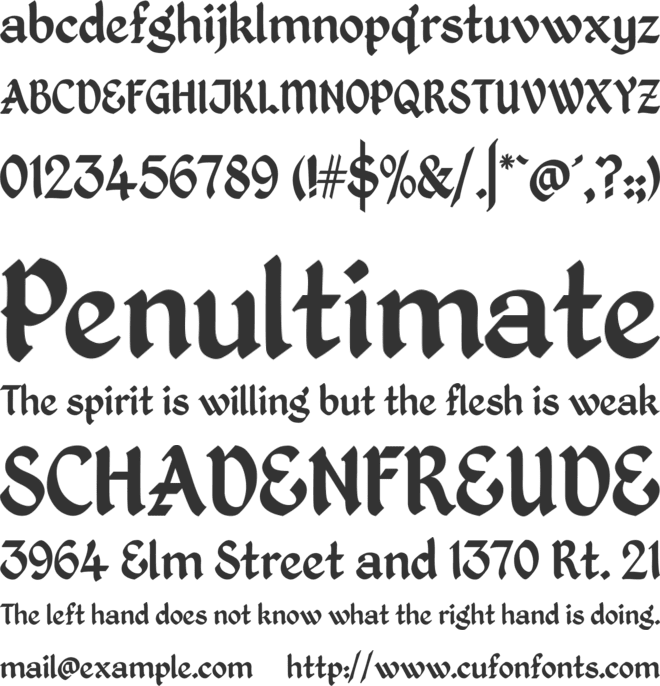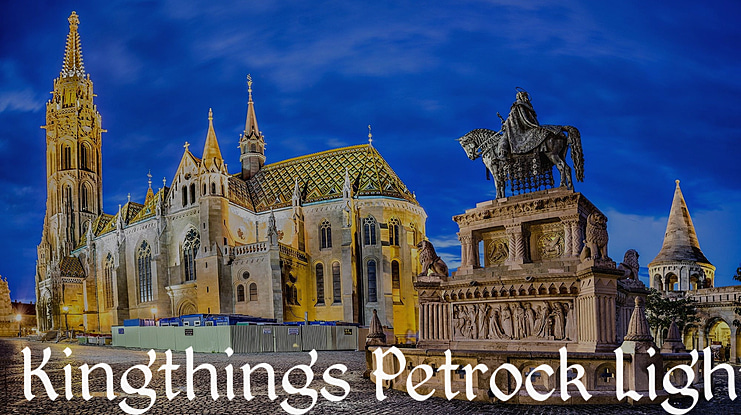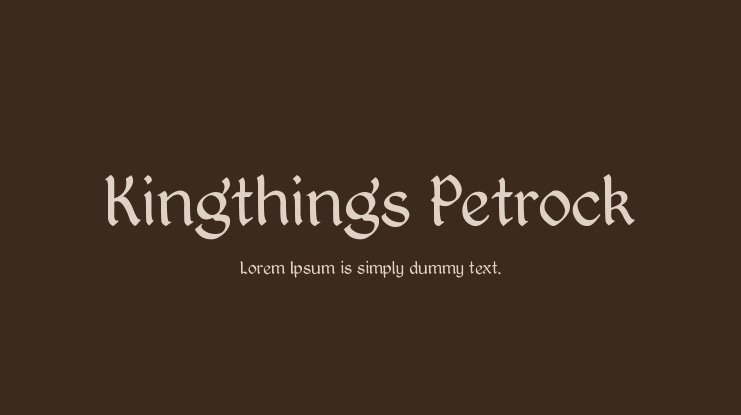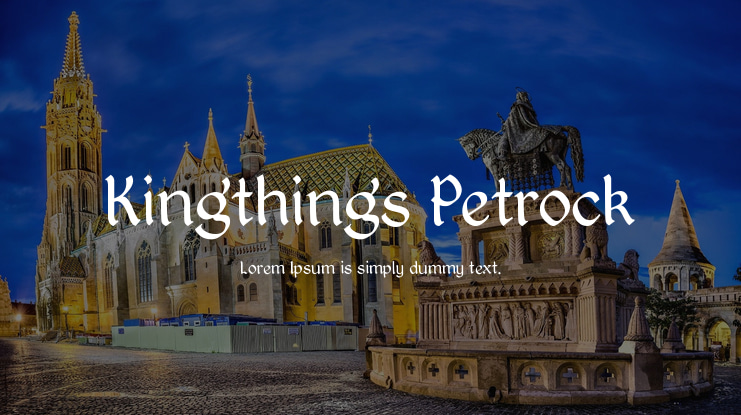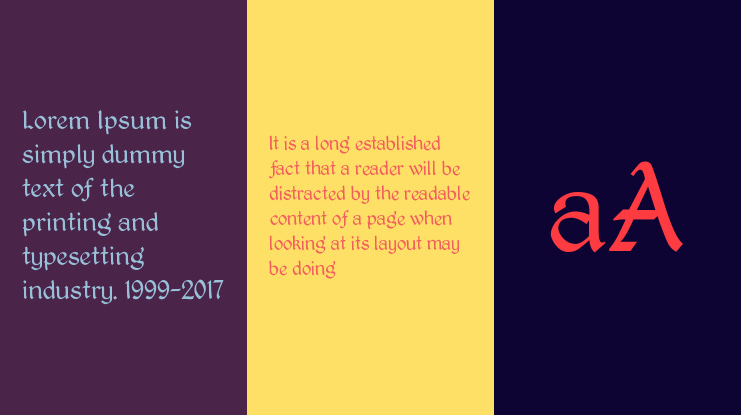
Kingthings Petrock Font Family
Petrock is based on letterforms found in a small city Church in Exeter - from a display case about bell ringing. A lovely simple labelling hand, I think I've done it justice...